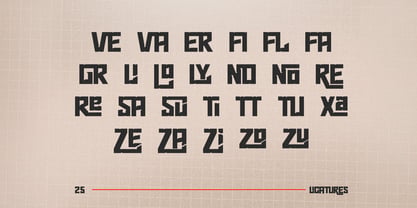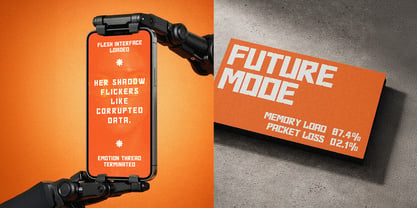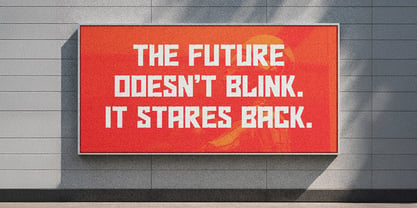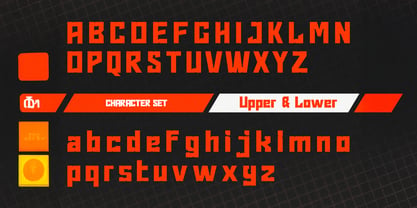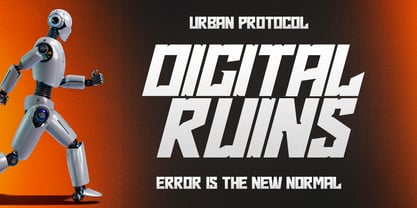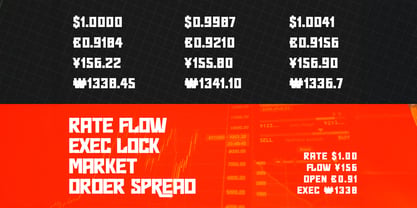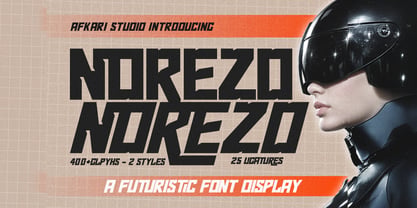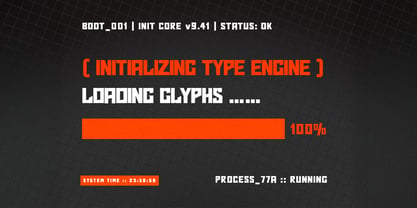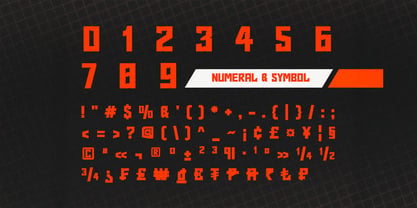
Norezo
La famille de polices Norezo a été conçue par Musthafa Kamal Emje et publiée par Afkari Studio. Norezo contient 2 styles et options de package familial. En savoir plus sur cette famille
Norezo is a futuristic display font designed to deliver a sleek, modern, and high-tech visual impact. Featuring sharp geometric shapes and clean letter structures, this font captures the spirit of innovation and forward-thinking design, making it ideal for contemporary creative projects. Norezo comes in Regular and Slant styles, allowing designers to create both stable and dynamic compositions. The Regular style provides a clean and solid appearance, while the Slant style adds motion and energy—perfect for designs that aim to convey speed and technology. Built for modern creatives, Norezo works perfectly across digital and print applications where bold and futuristic typography is needed. Highlighted Features: - Complete set of uppercase and lowercase letters, numerals, and punctuation marks - Unique alternates and ligatures for enhanced character variation - Compatible with both PC and Mac platforms - Simple installation process - Seamless integration with Adobe Illustrator, Adobe Photoshop, Adobe InDesign, and Microsoft Word - No additional design software required for full accessibility - Multilingual support including characters such as ä, ö, ü, Ä, Ö, Ü, ß, ¿, and ¡ Bring a bold and modern technological edge to your designs with Norezo – Futuristic Display Font, crafted for projects that look toward the future.